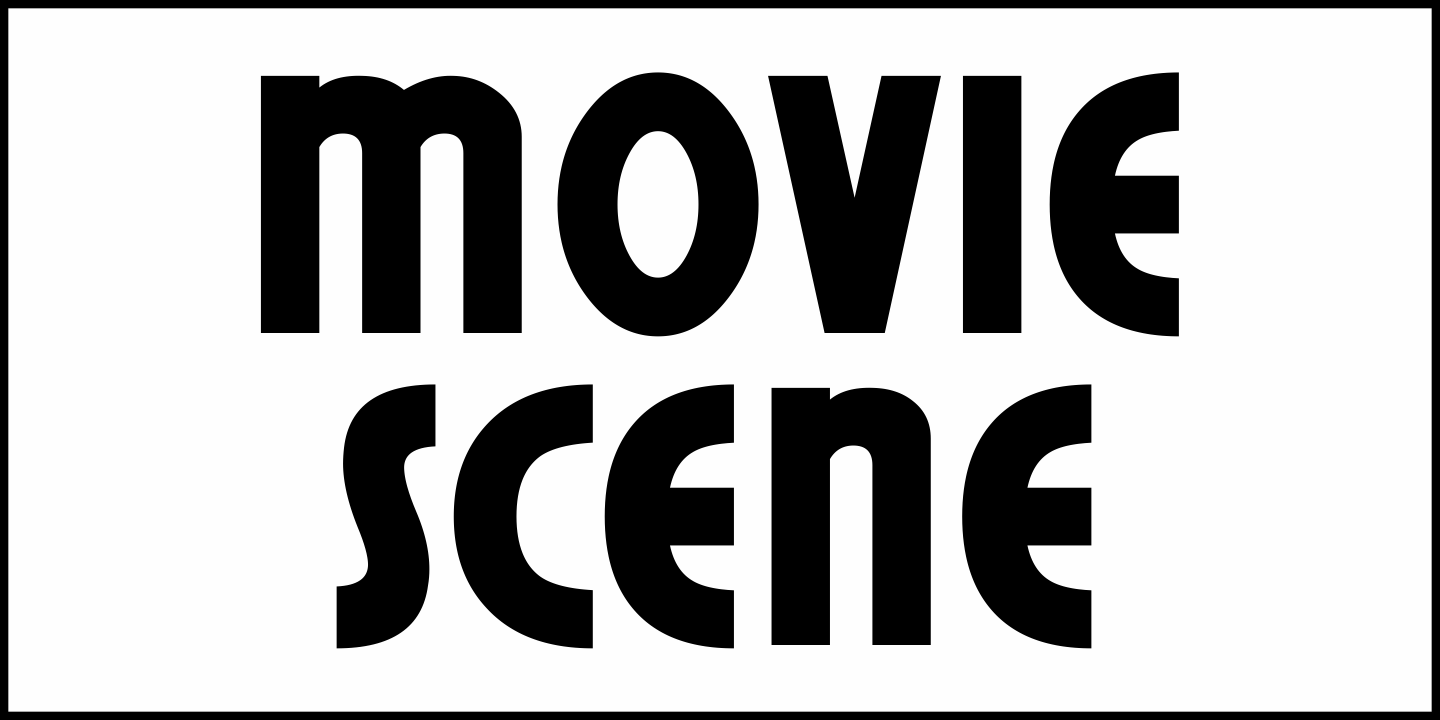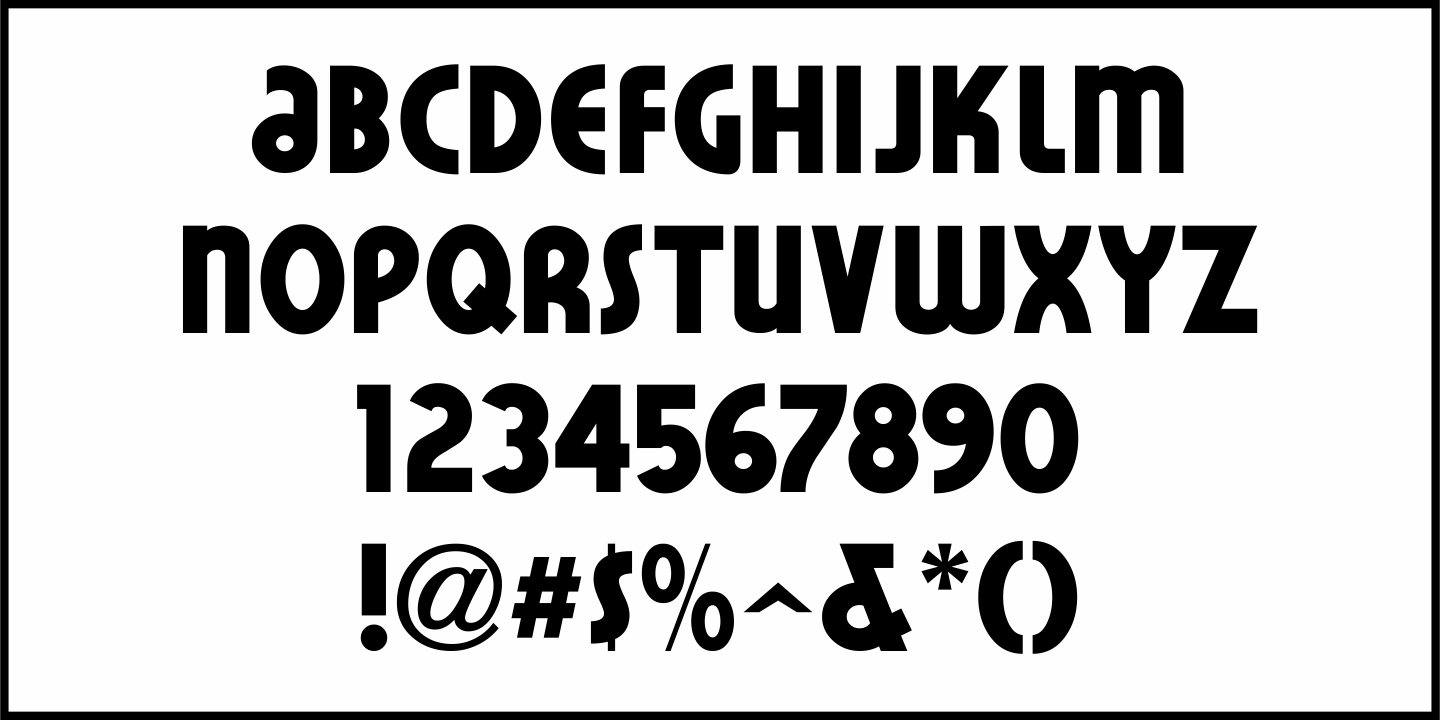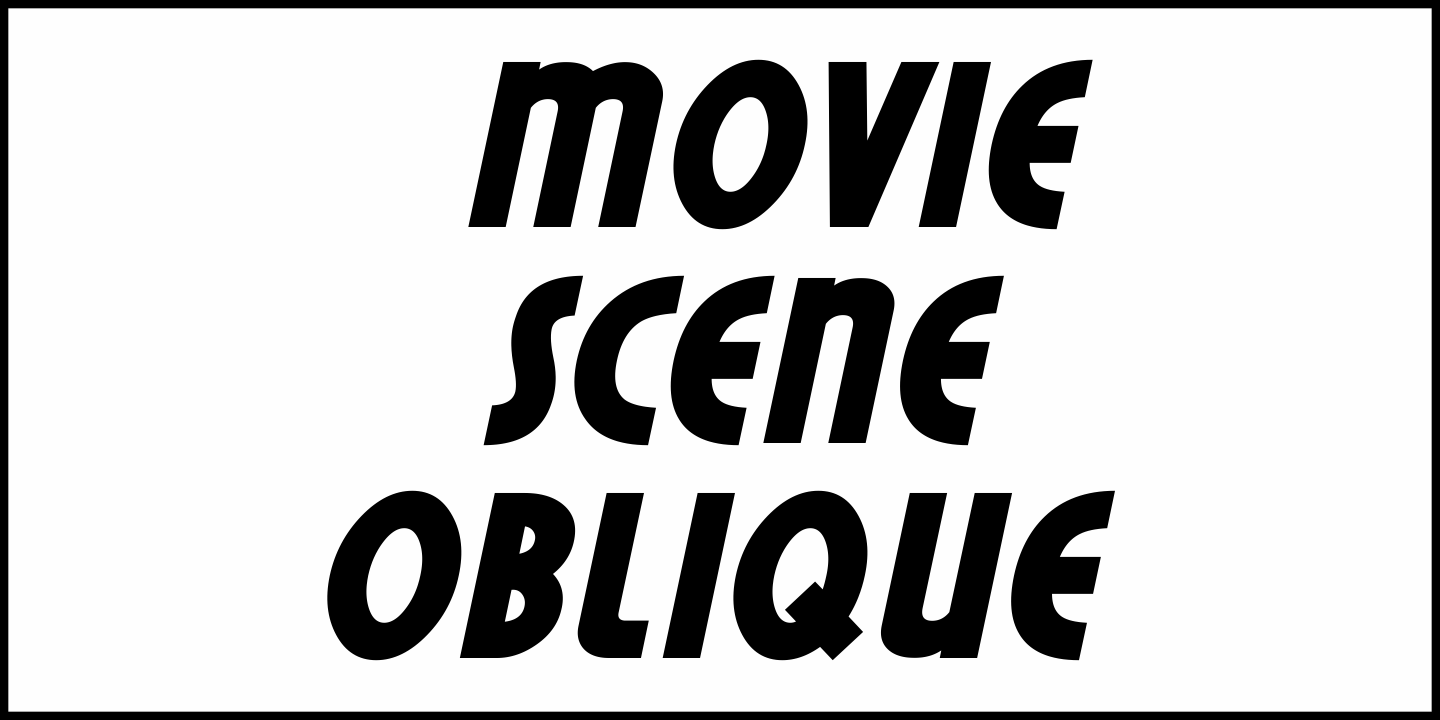
Movie Scene
The cast names on the poster for the 1933 Clark Gable-Helen Hayes romance film "White Sister" were hand lettered in an Art Deco sans serif design.
Now redrawn digitally as Movie Scene JNL, it's available in both regular and oblique versions.